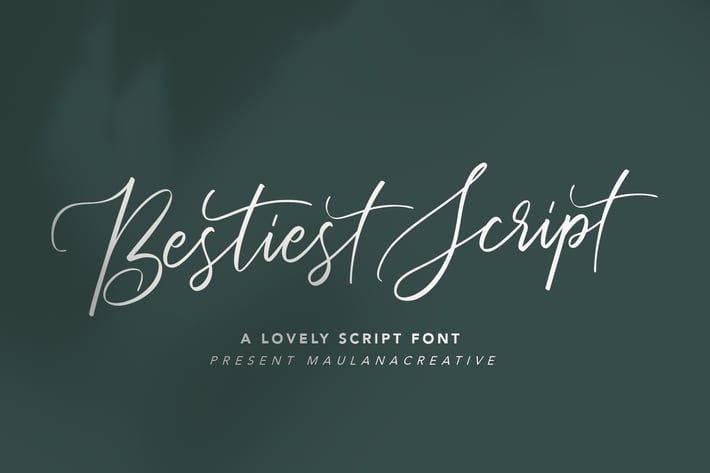
Bestiest Script Lovely Modern Font
Give your designs an authentic brush handcrafted feel. Bestiest is perfectly suited to signature, stationery, logo, typography quotes, magazine or book cover, website header, flyer, clothing, branding, packaging design and more.